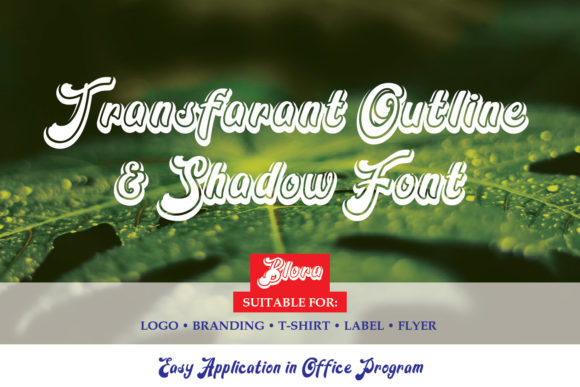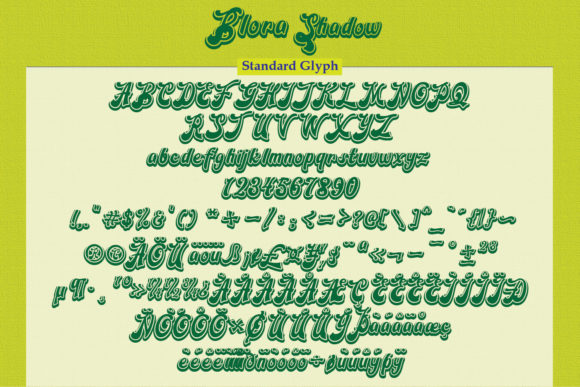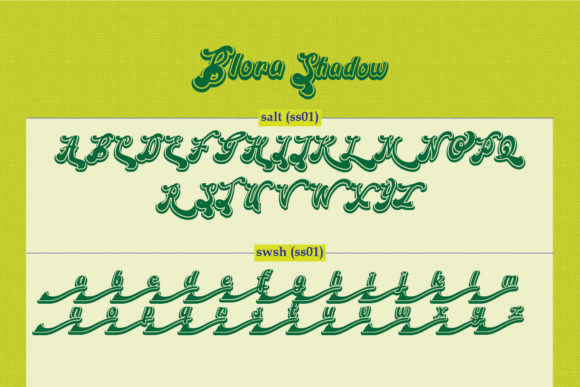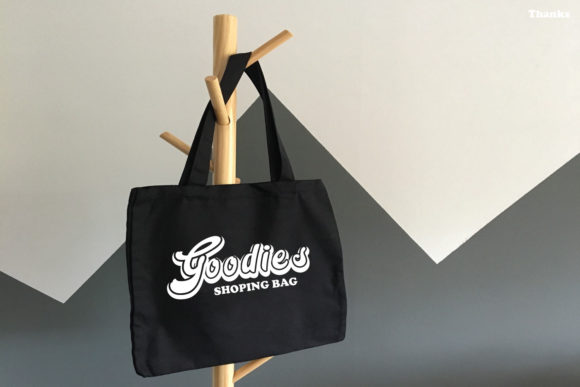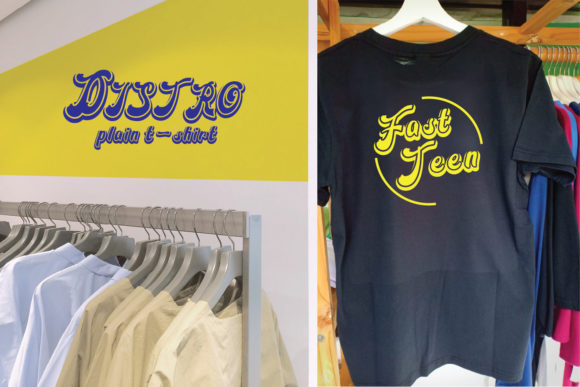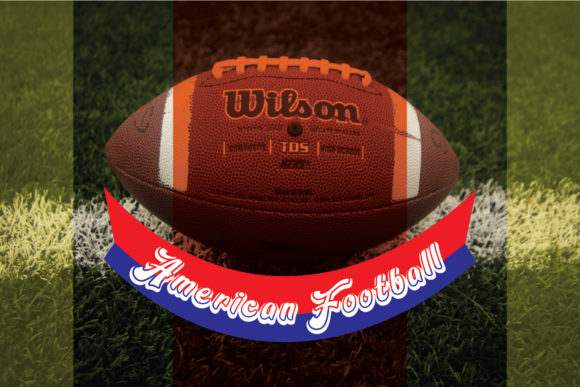
Blora Font: A Nostalgic Retro Display Font for Your 70’s-Themed Projects
Are you a designer or crafter looking for a unique font to add a touch of nostalgia to your 70’s-themed projects? Look no further than the Blora Font. This retro display font is sure to transport you back to the groovy era of bell-bottom jeans, disco balls, and retro vibes. With its distinctive shadow outline, Blora Font is the perfect addition to any project that needs a dash of vintage flair.
The Retro Charm of Blora Font
Blora Font is a one-of-a-kind display font that exudes a sense of nostalgia and playfulness. Its retro shadow outline gives it a distinctive look that’s reminiscent of classic 70’s typography. Whether you’re working on a graphic design project, crafting a vintage-inspired invitation, or creating a retro-themed t-shirt design, Blora Font is sure to add a touch of authenticity and whimsy.
Key Features of Blora Font
- Retro Shadow Outline: The distinctive shadow outline of Blora Font gives it a unique and eye-catching look that’s perfect for 70’s-themed projects.
- Display Font: Blora Font is designed specifically for display purposes, making it perfect for headlines, titles, and other attention-grabbing elements.
- Versatile: Blora Font can be used for a wide range of projects, from graphic design and crafting to digital and print media.
- 70’s-Themed Posters: Create eye-catching posters for concerts, events, or promotions with Blora Font as the focal point.
- Vintage-Inspired Invitations: Add a touch of nostalgia to your invitations with Blora Font, perfect for birthday parties, weddings, and other celebrations.
- Retro-Themed T-Shirt Designs: Create unique and eye-catching t-shirt designs with Blora Font, perfect for 70’s-themed events or everyday wear.
- Graphic Design Projects: Use Blora Font to add a touch of retro flair to your graphic design projects, including brochures, flyers, and more.
Tips and Tricks for Working with Blora Font
Here are a few tips and tricks for getting the most out of Blora Font:
- Experiment with Colors: Try pairing Blora Font with bold, bright colors to really make it pop.
- Play with Texture: Add texture to your design with Blora Font by pairing it with patterned backgrounds or graphics.
- Mix and Match Fonts: Combine Blora Font with other fonts to create a unique and eye-catching look.
Blora Font is a unique and versatile retro display font that’s perfect for 70’s-themed projects. With its distinctive shadow outline and easy-to-use design, Blora Font is sure to add a touch of nostalgia and whimsy to any project. Whether you’re a designer, crafter, or DIY enthusiast, Blora Font is a must-have addition to your font library.